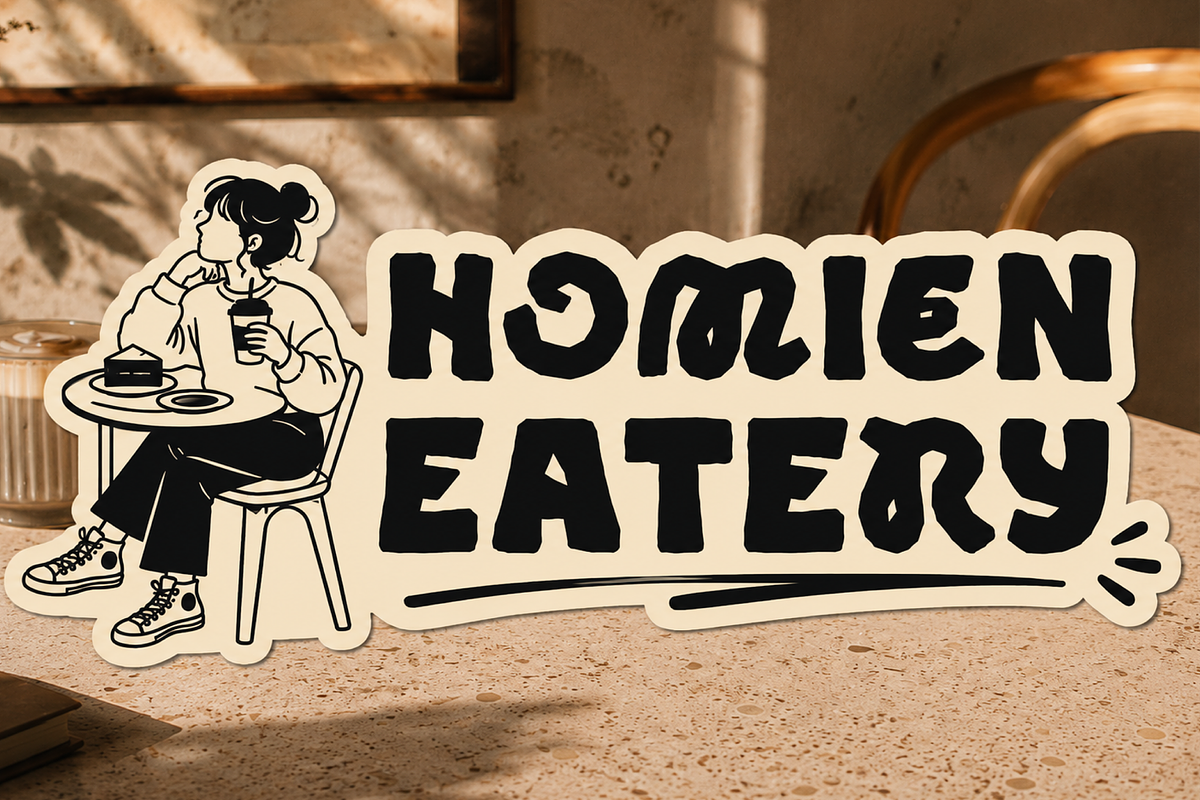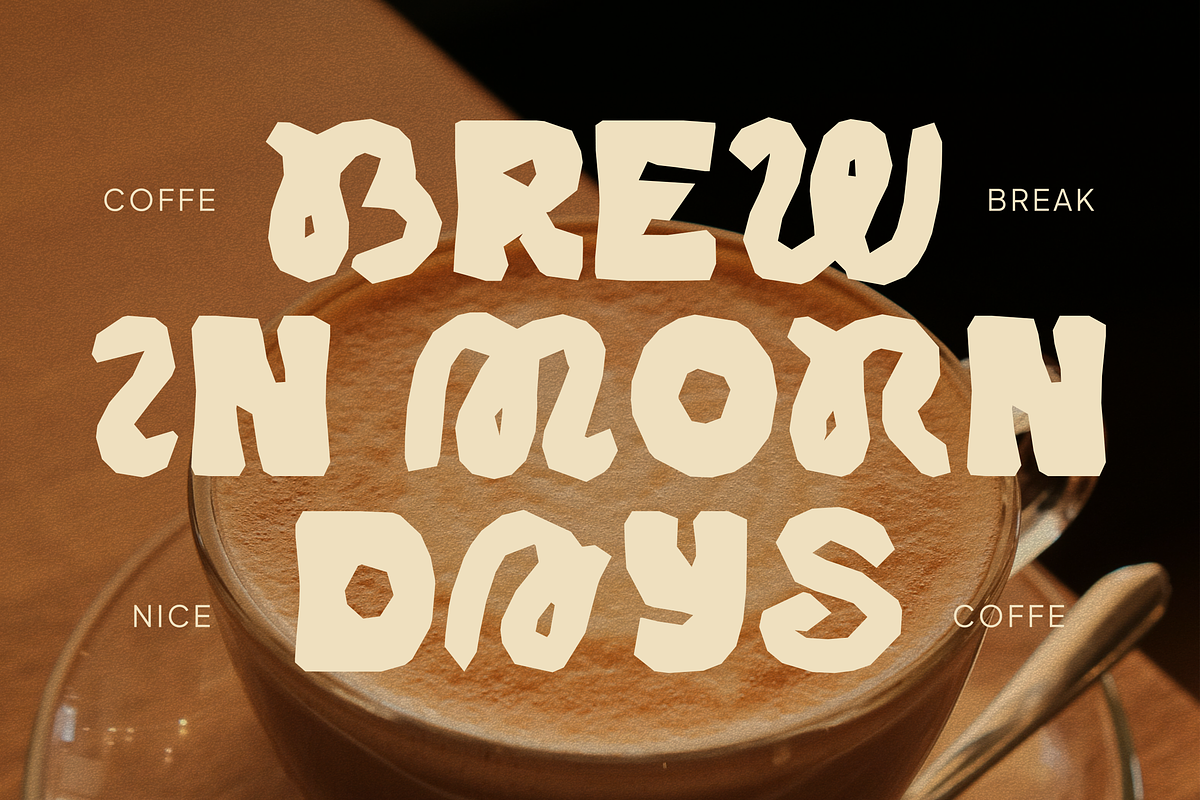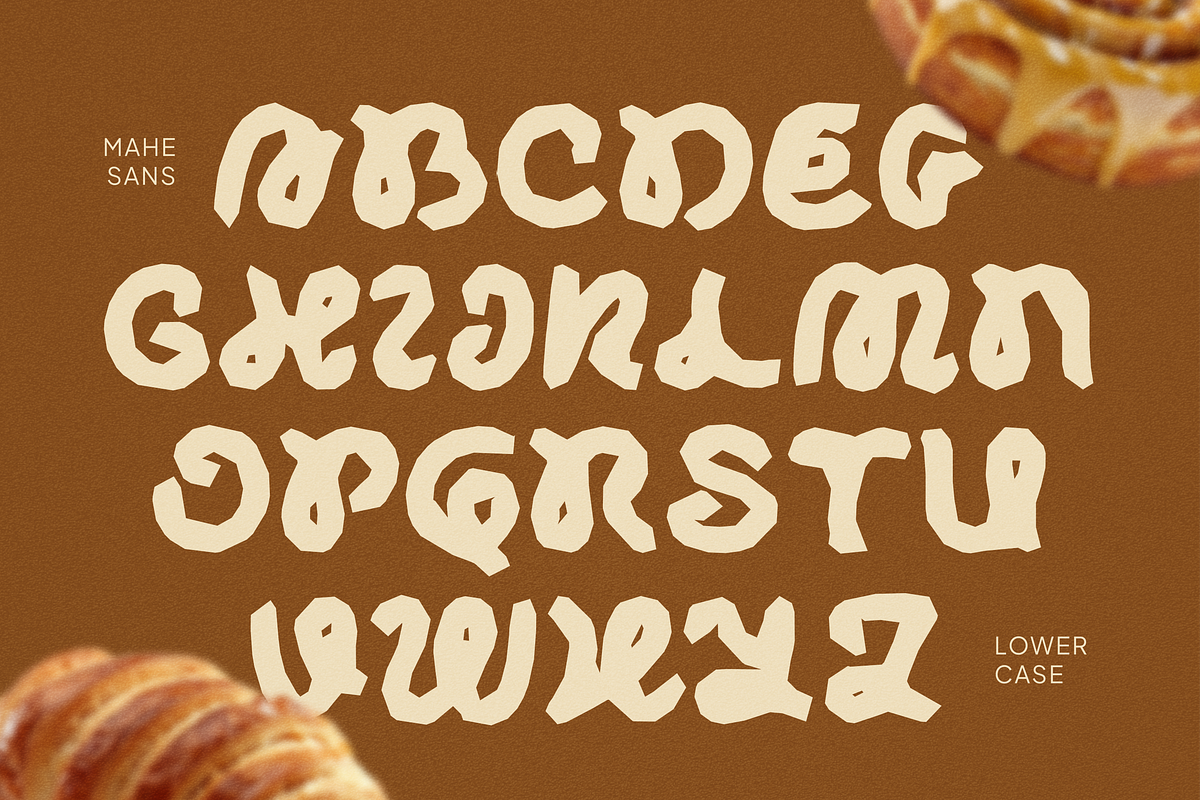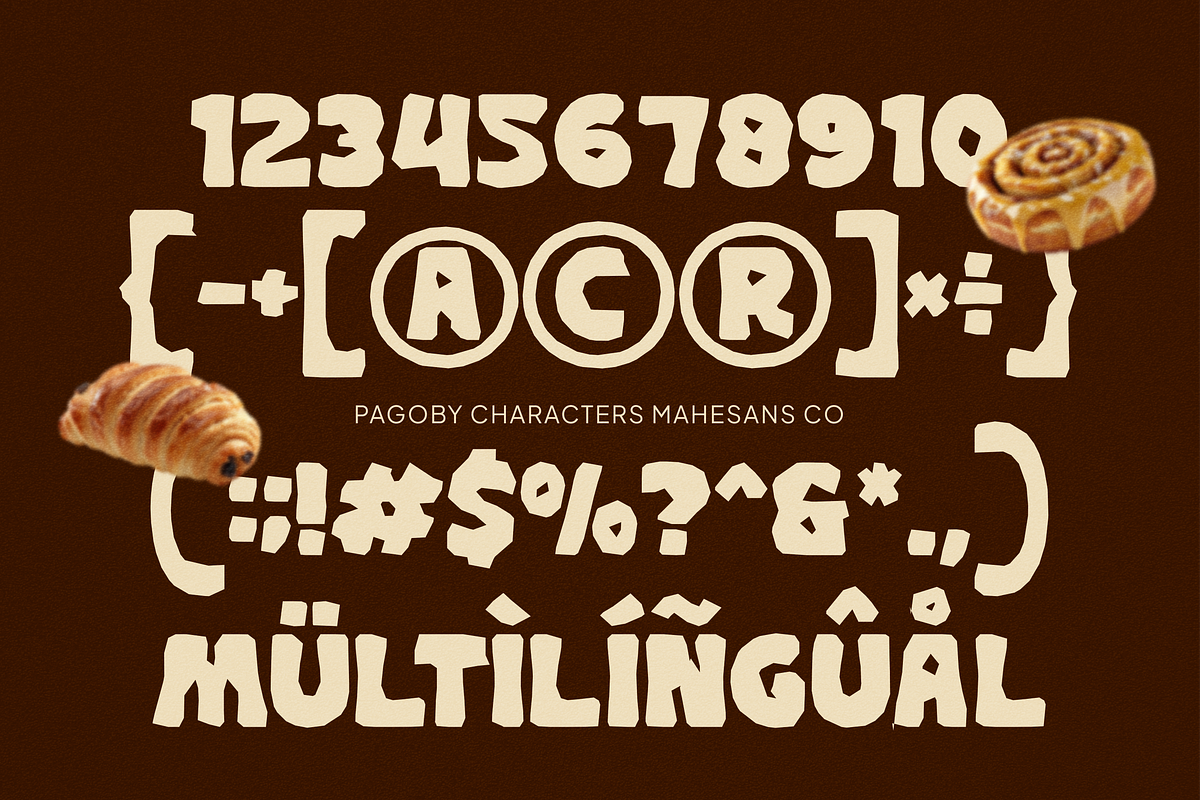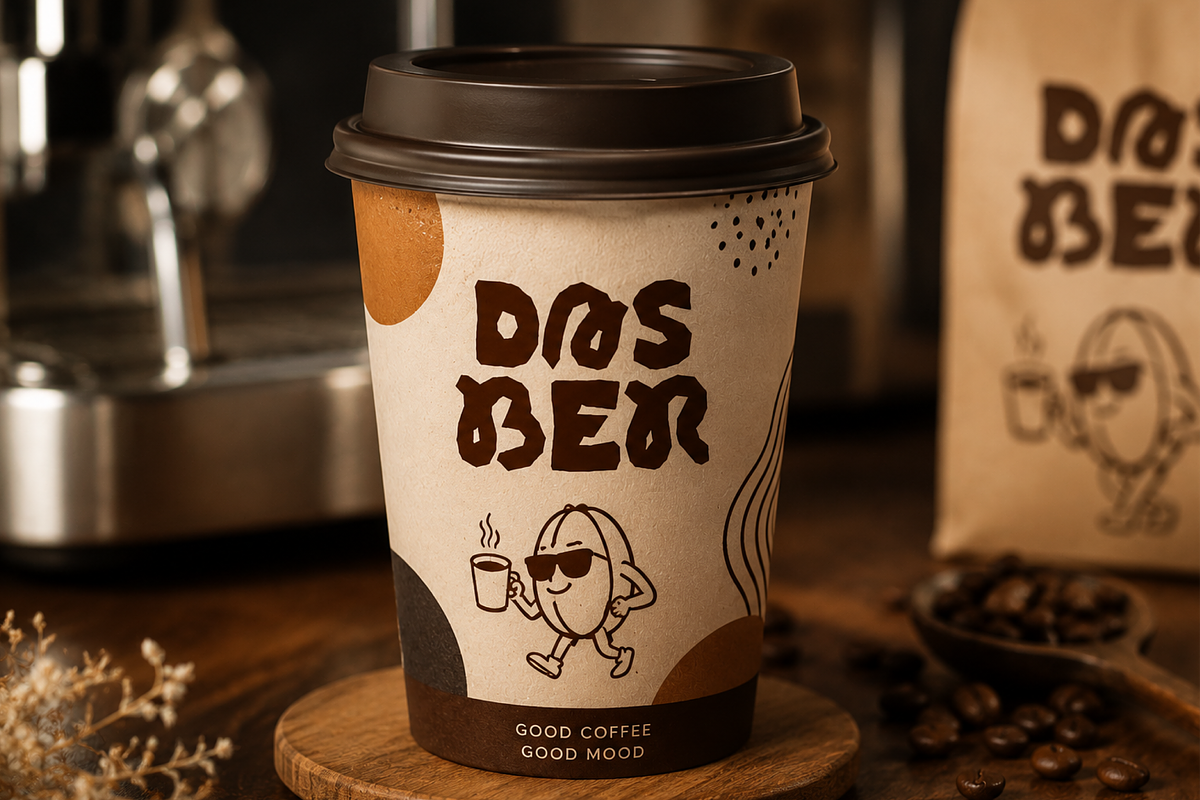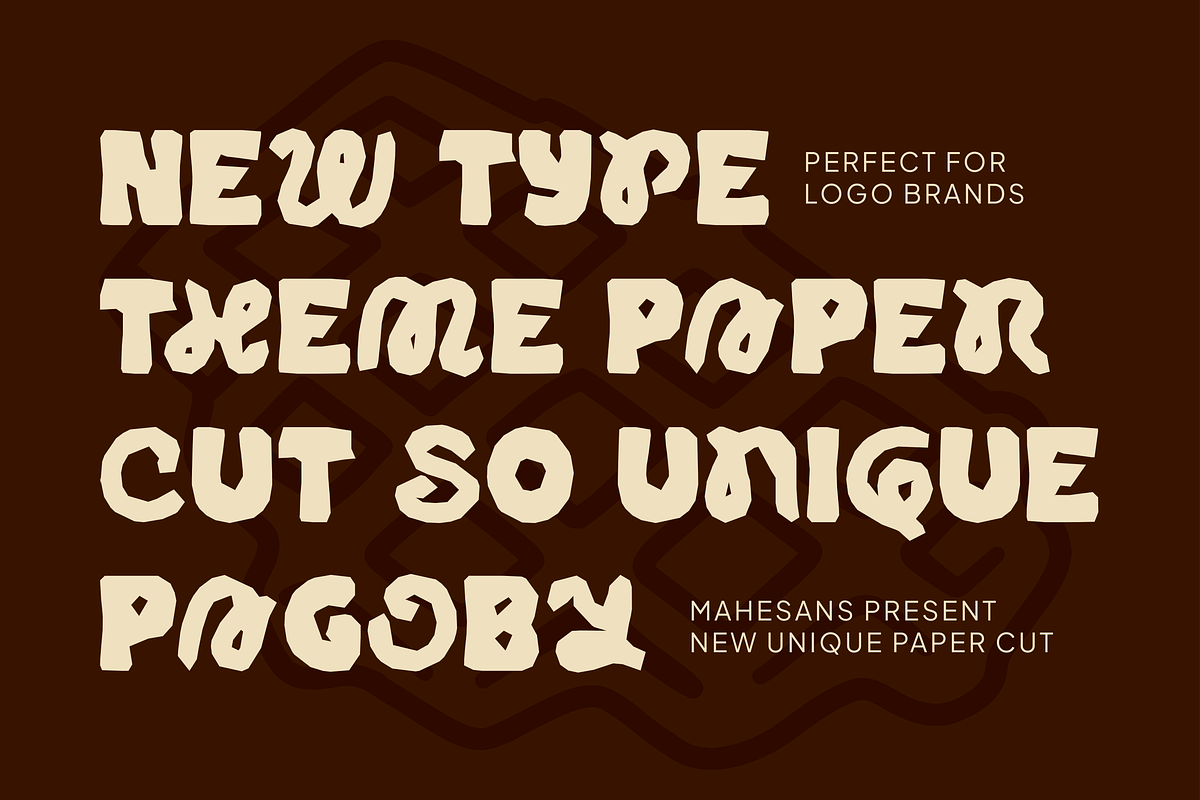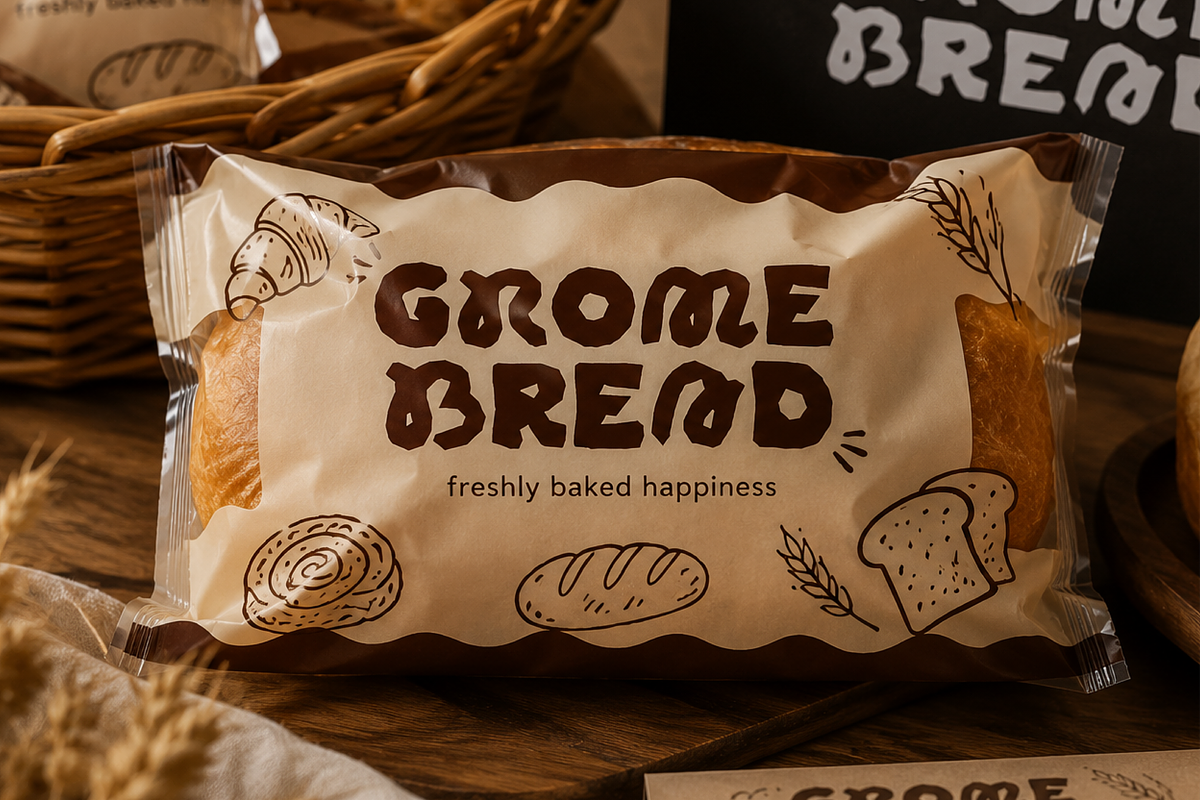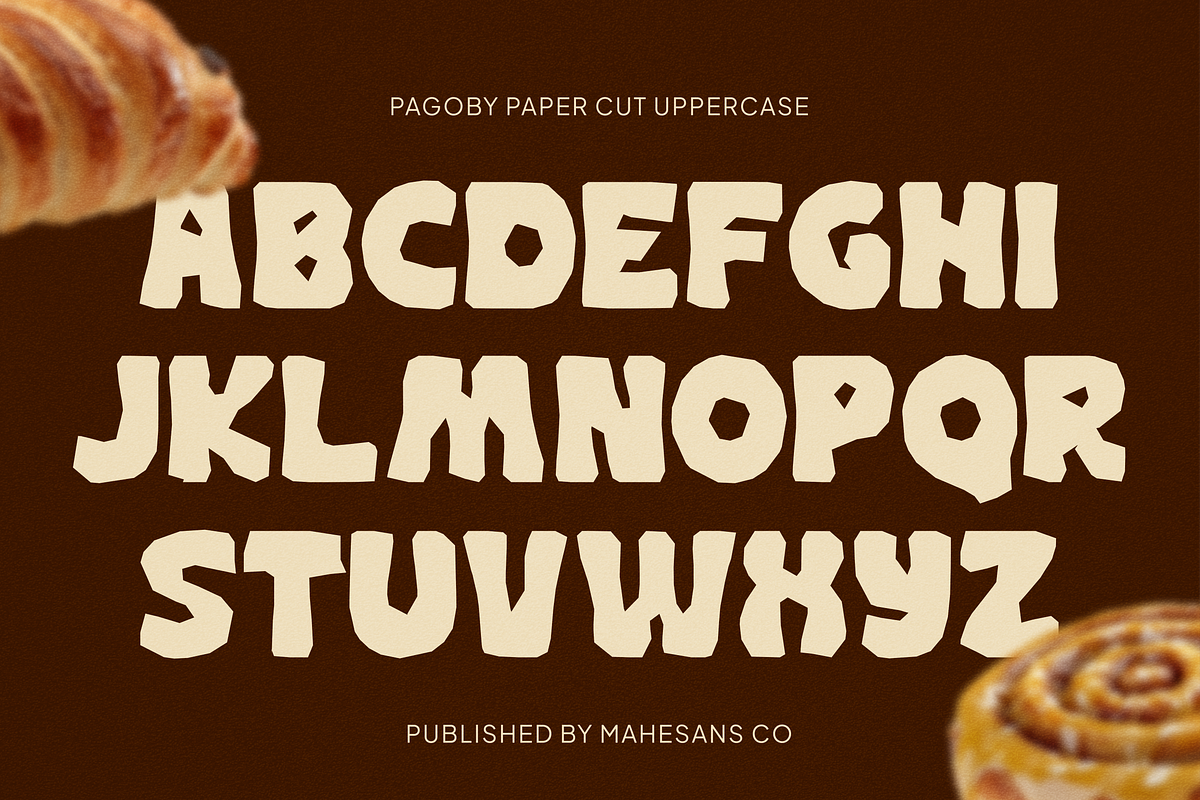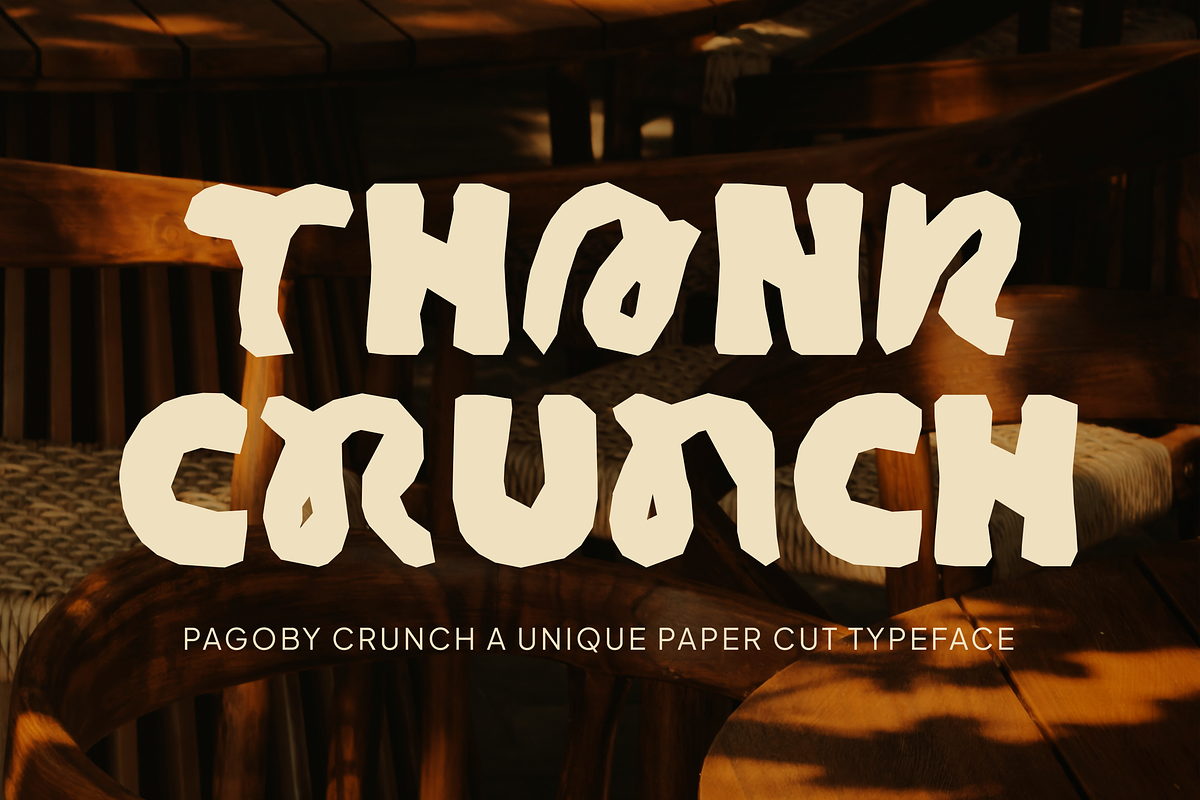
Pagoby – Mixed Cutout Font
Introducing Pagoby, a unique mixed cutout font inspired by handcrafted paper shapes and organic hand-cut lettering. Designed with irregular edges, playful forms, and an artistic handmade feel, Pagoby delivers a bold personality that instantly grabs attention.
Each character features a distinctive cutout style, creating an authentic handcrafted appearance that feels creative, fun, and expressive. Whether you're designing branding projects, bakery packaging, cafe menus, children's products, posters, stickers, social media graphics, or eye-catching headlines, Pagoby brings warmth and originality to your work.
Its chunky shapes and imperfect details make it ideal for projects that need a friendly, artistic, and memorable visual identity. From modern craft brands to vintage-inspired packaging, Pagoby helps transform ordinary text into standout designs full of character.
- Bakery & Cafe Branding
- Food Packaging
- Children's Products
- Posters & Headlines
- Stickers & Labels
- Handmade & Craft Brands
- Social Media Graphics
- Creative Advertising
- Greeting Cards
- Multilanguage